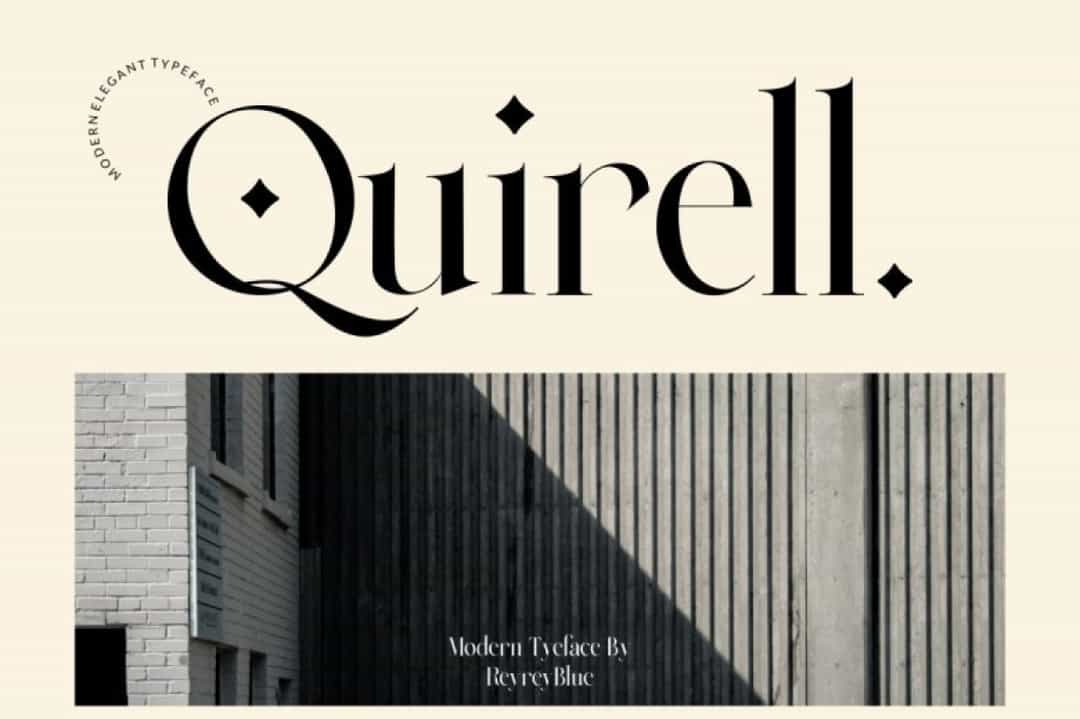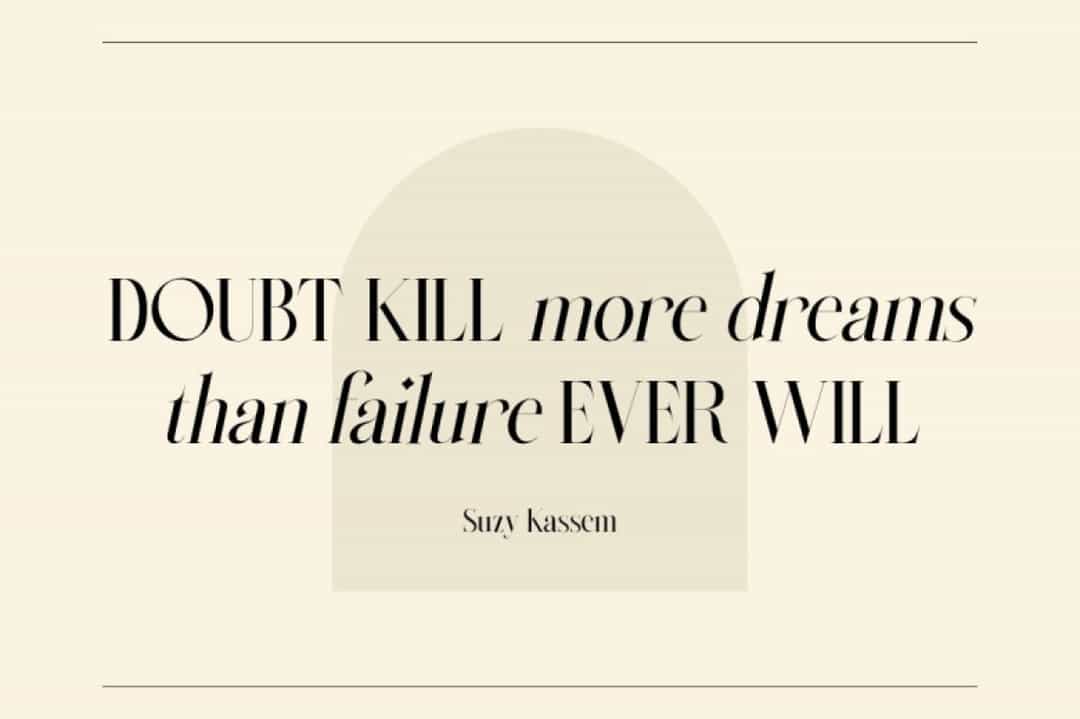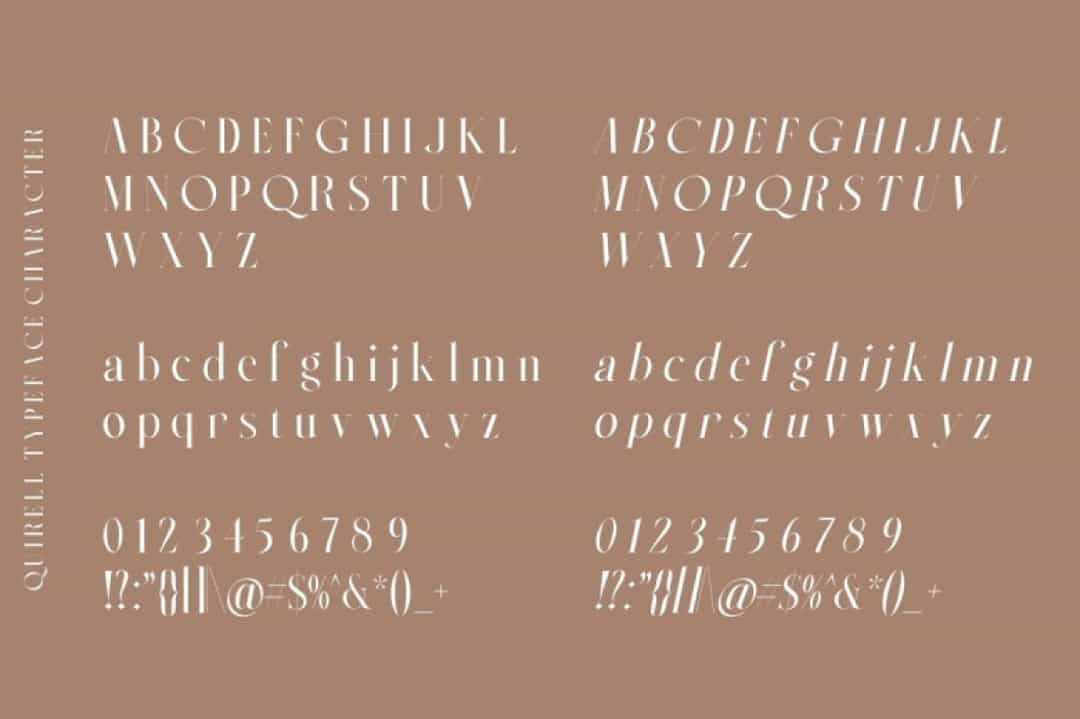
Quirell is an elegant serif display font featuring modern and sophisticated characteristics. Perfect for creating elegant classical designs like logos and branding materials for weddings and special events such as engagement party invitations or overlays for social media cards, Quirell provides endless design opportunities.